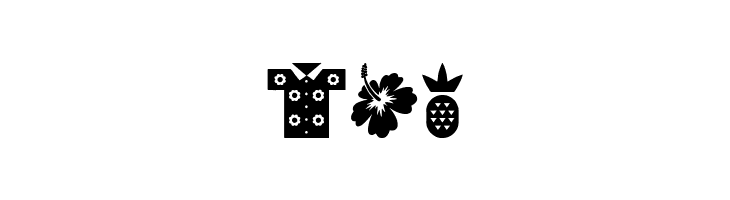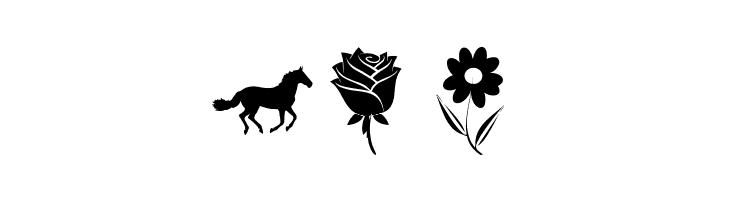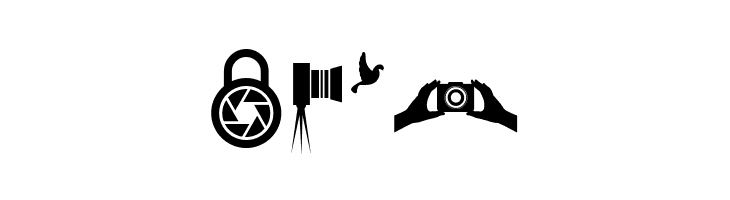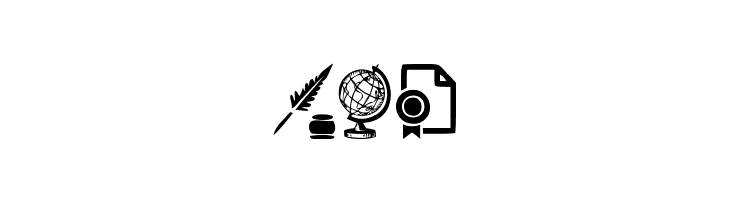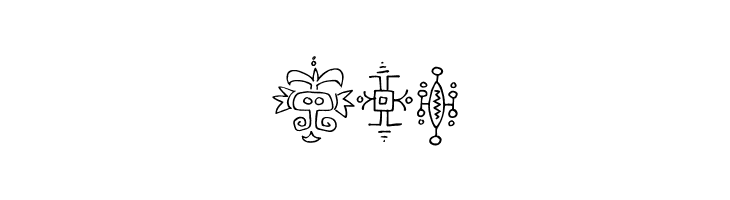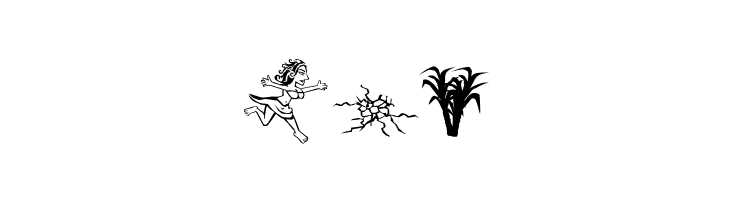
Playful Hawaiian-themed icon set in bold silhouette style.
Bold, high-contrast icon set with a narcotics and crime theme.
Nature-inspired pictogram set with animals and plants in silhouette.
A bold, decorative icon font featuring camera and photography motifs.
Bold, business-oriented icon set with simplified silhouettes.
Bold, simple school and education icon set.
Abstract, decorative font with intricate, whimsical glyphs.
Illustrative, folk-inspired display font with high-contrast pictograms.